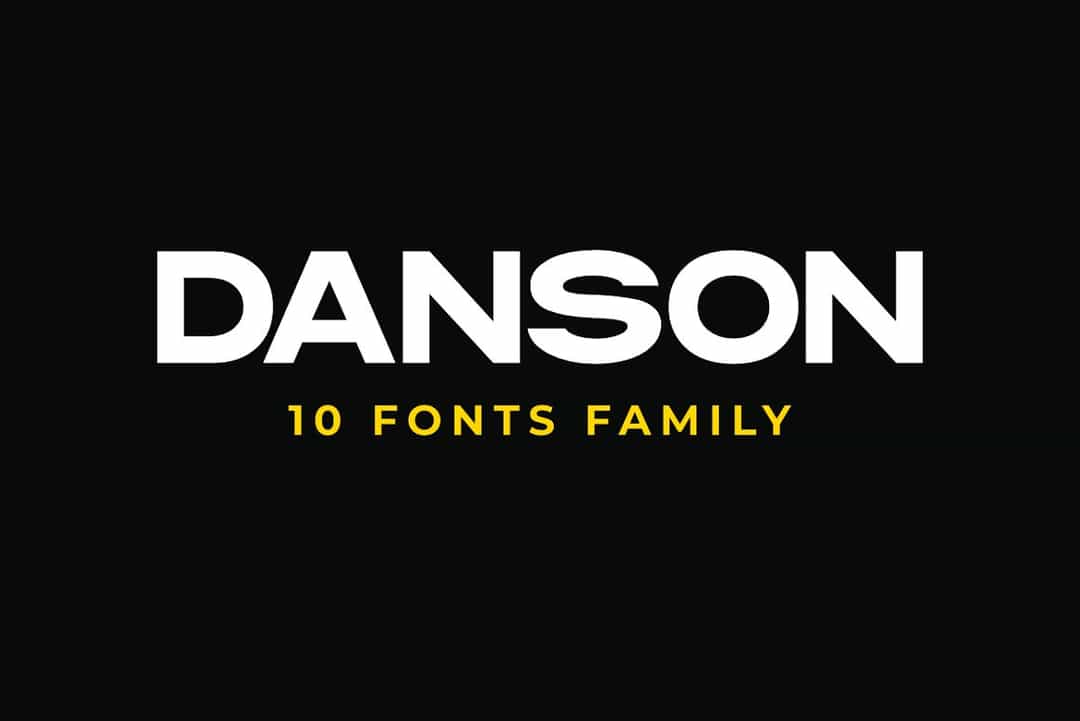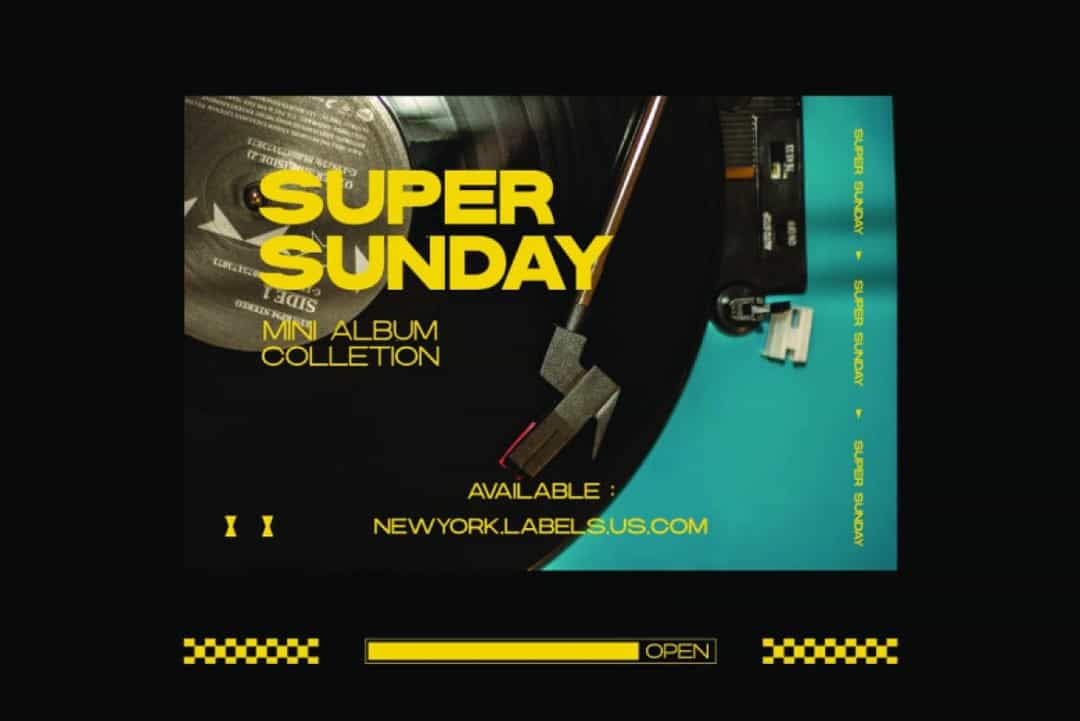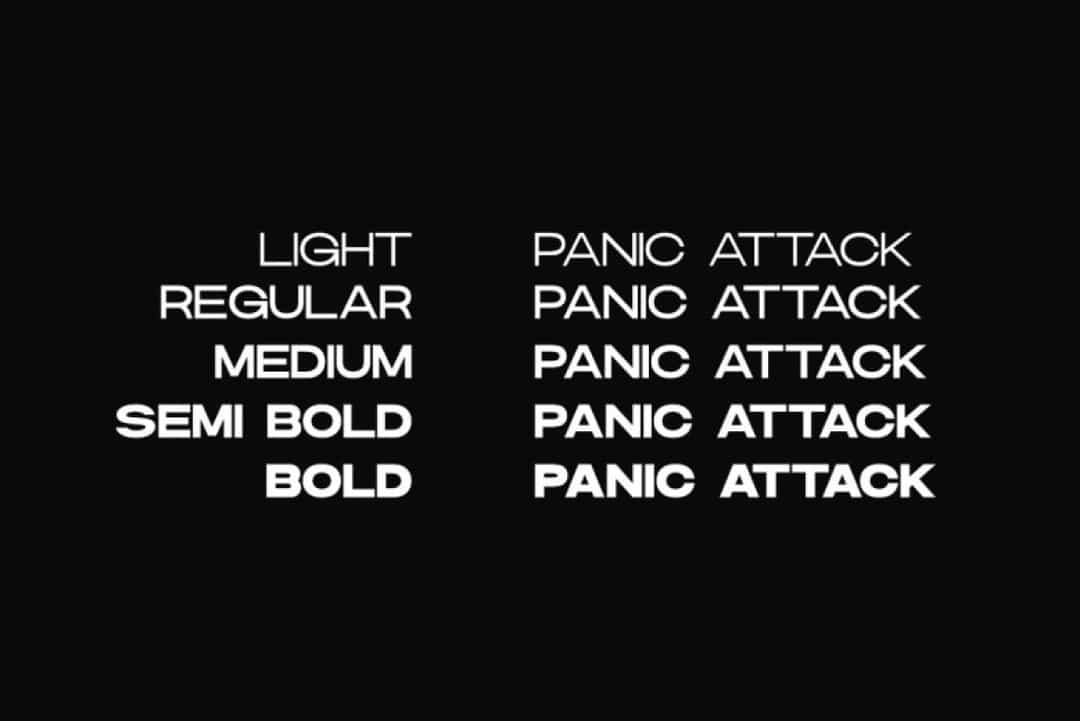
Discover Danson Font, part of the Sans Serif collection—a versatile and unique font perfect for adding a personal touch to your projects. Download it for free and enjoy crafting designs with style, from invitations to social media posts. This font is available exclusively for personal use, giving you the freedom to create without limits. Unlock your creativity with Danson Font today!
Danson Sans Font is designed with great skill. Use Inson Sans for projects including printing, advertisements, campaigns posters book titles and more.